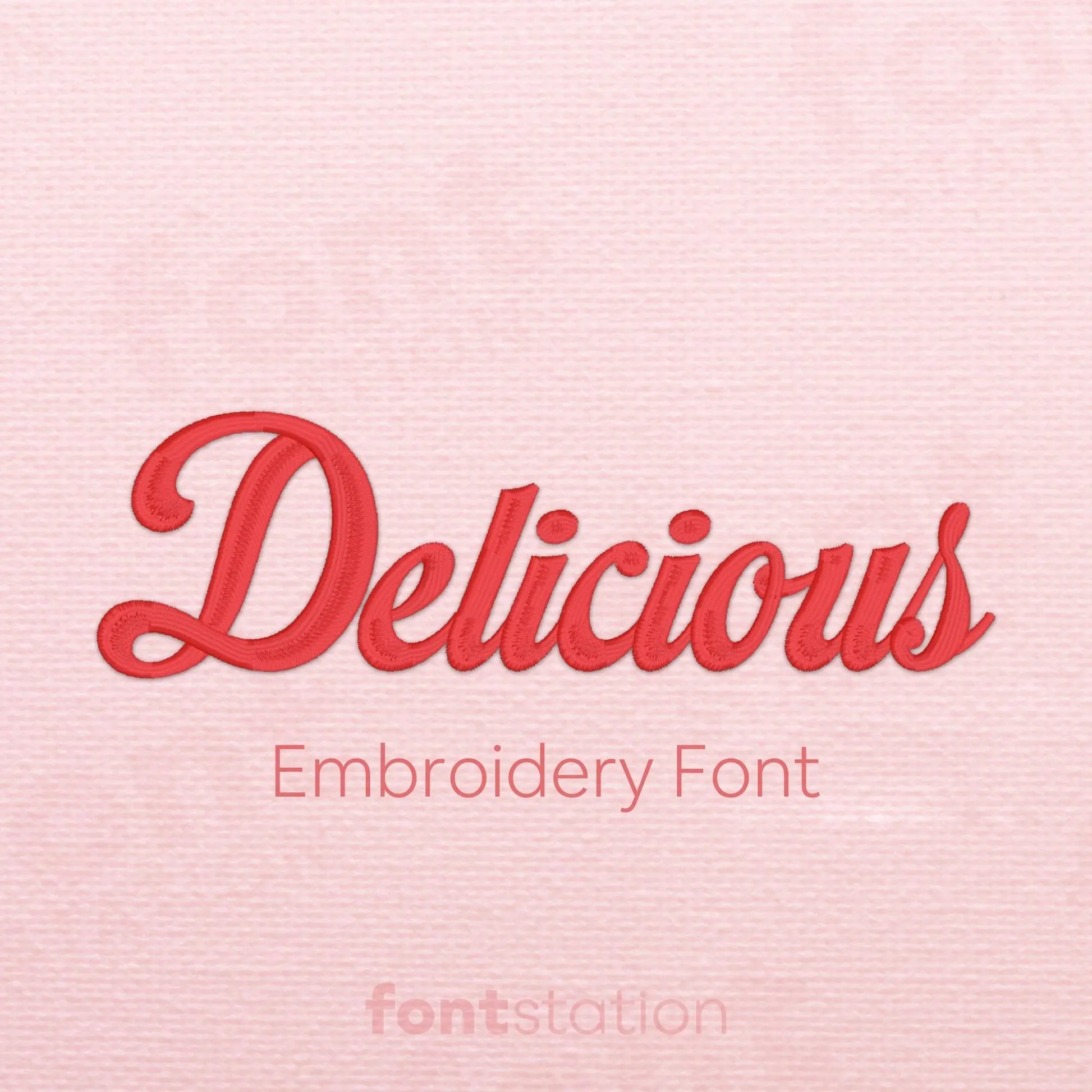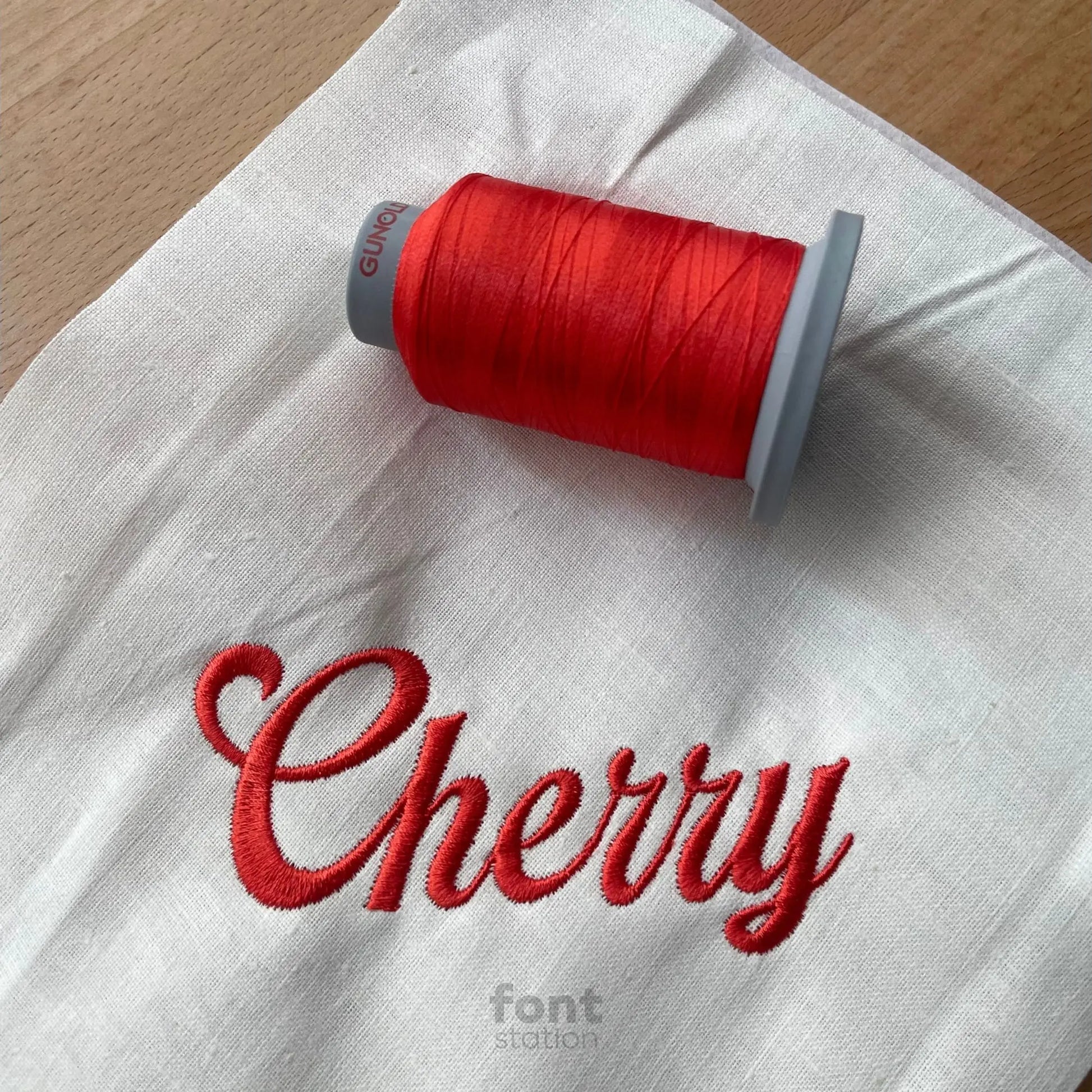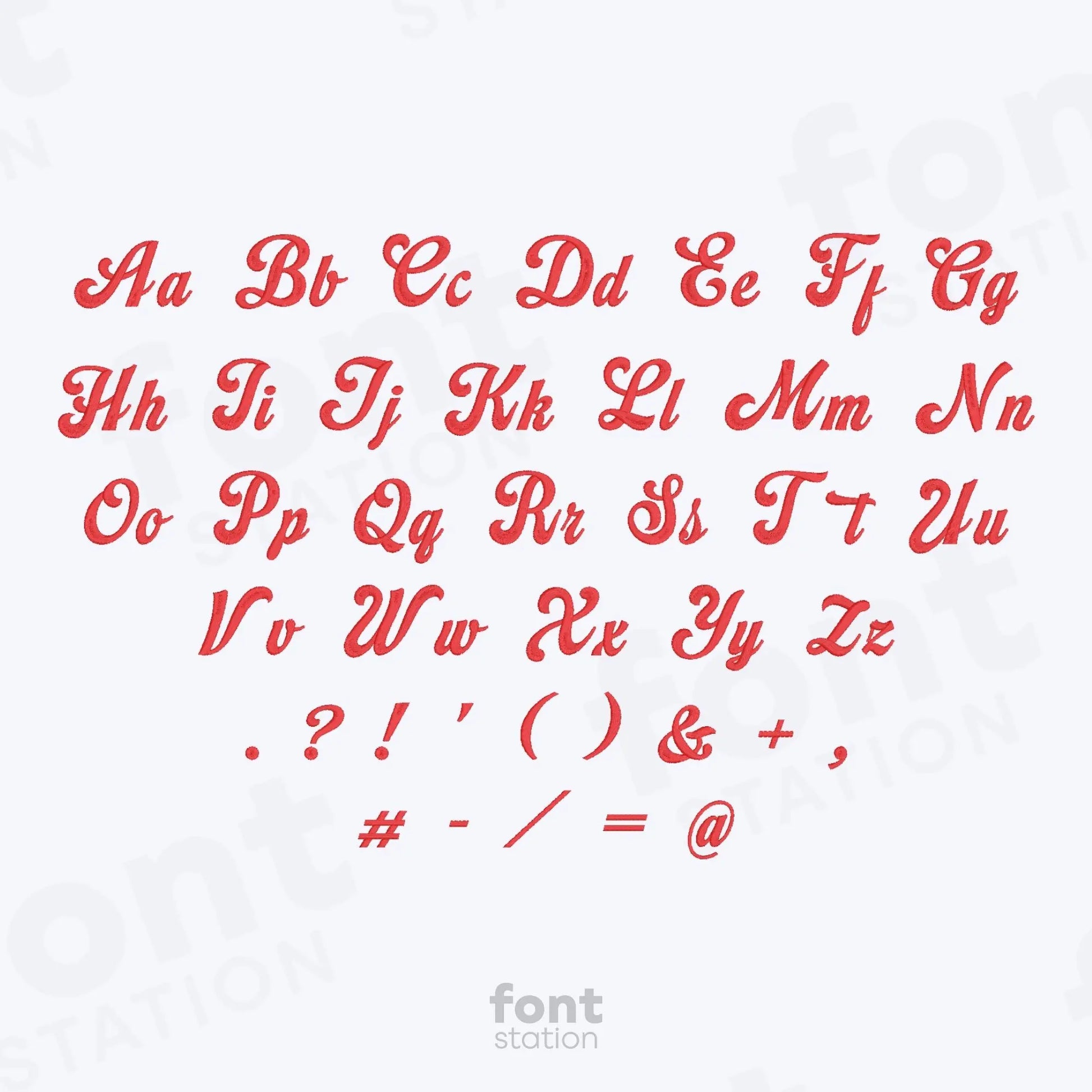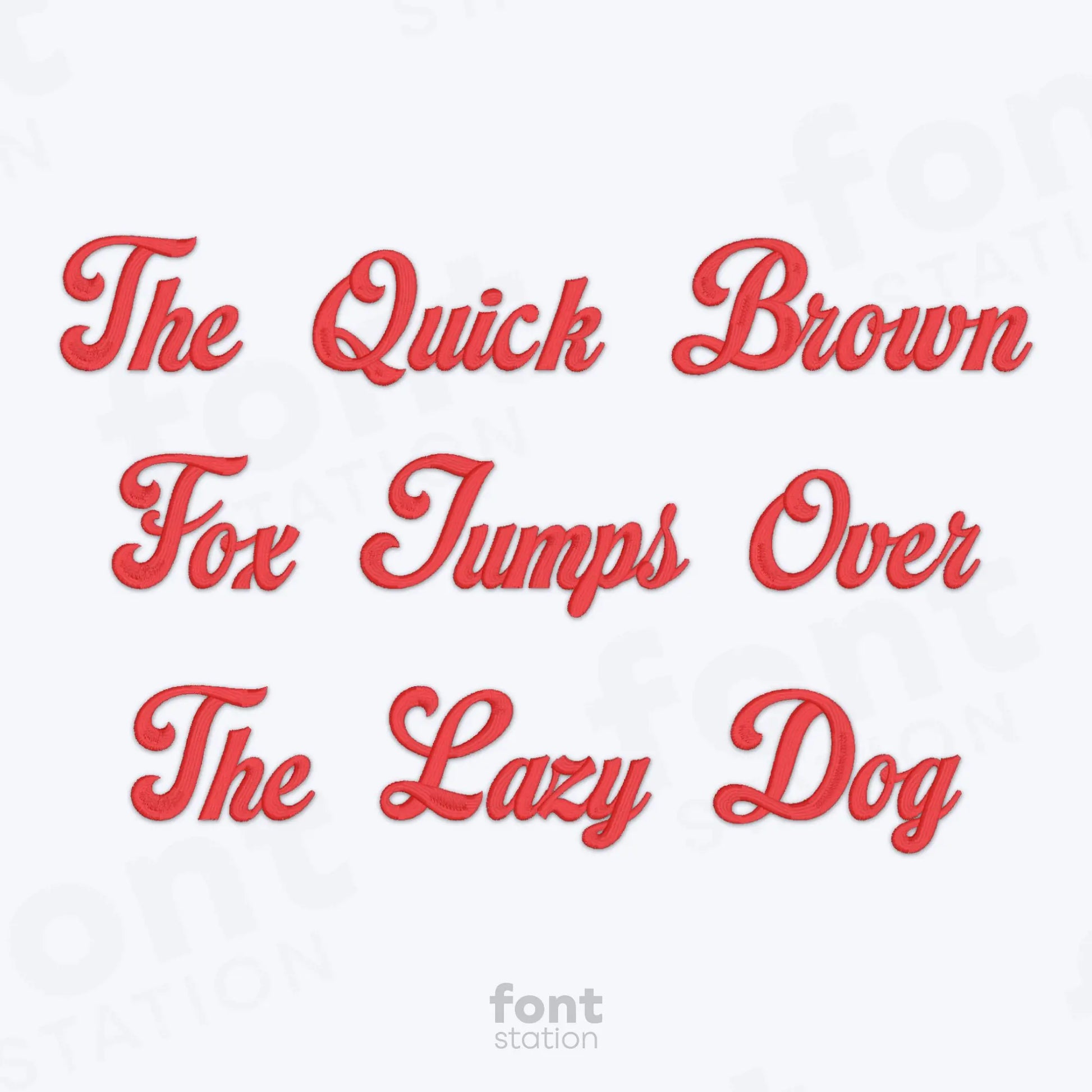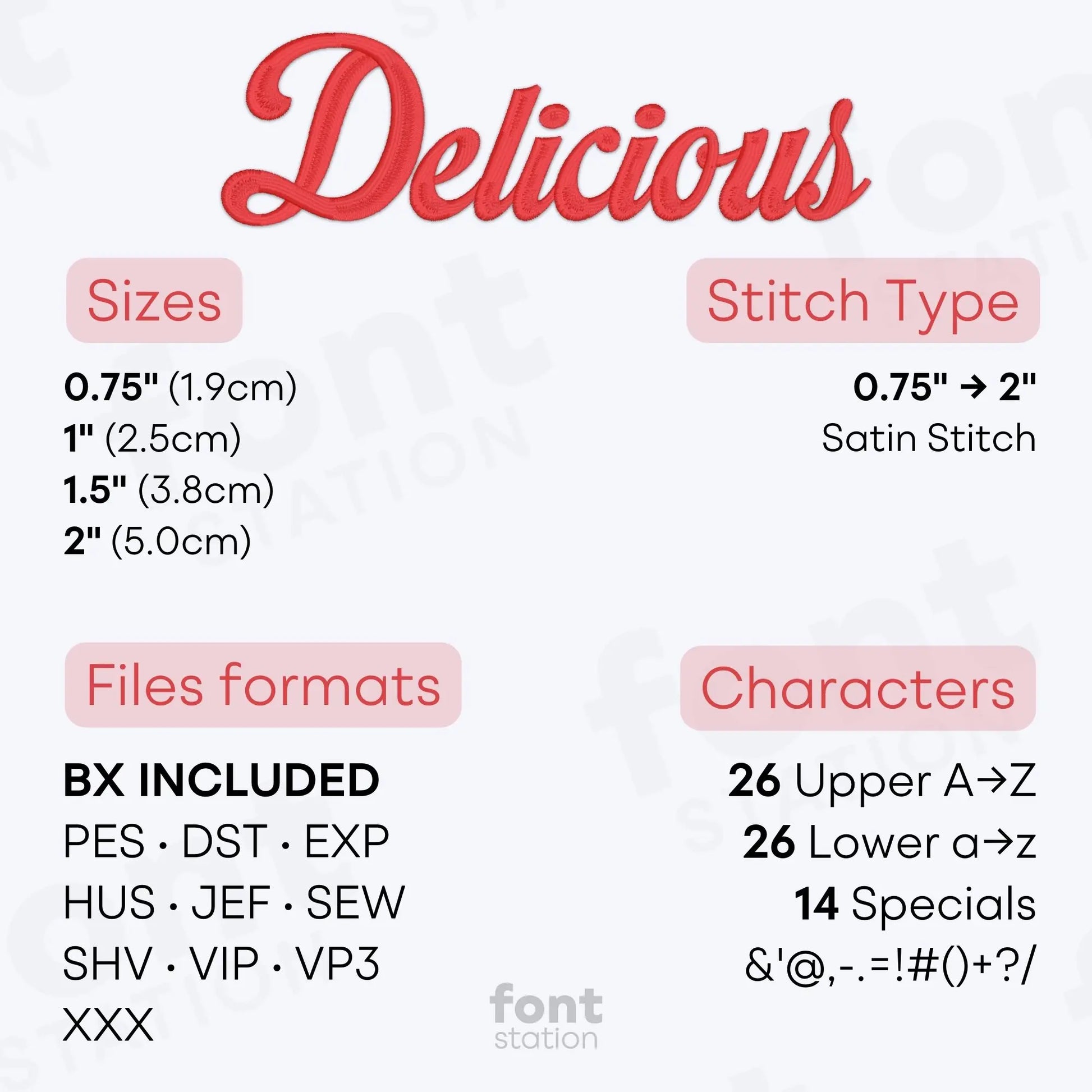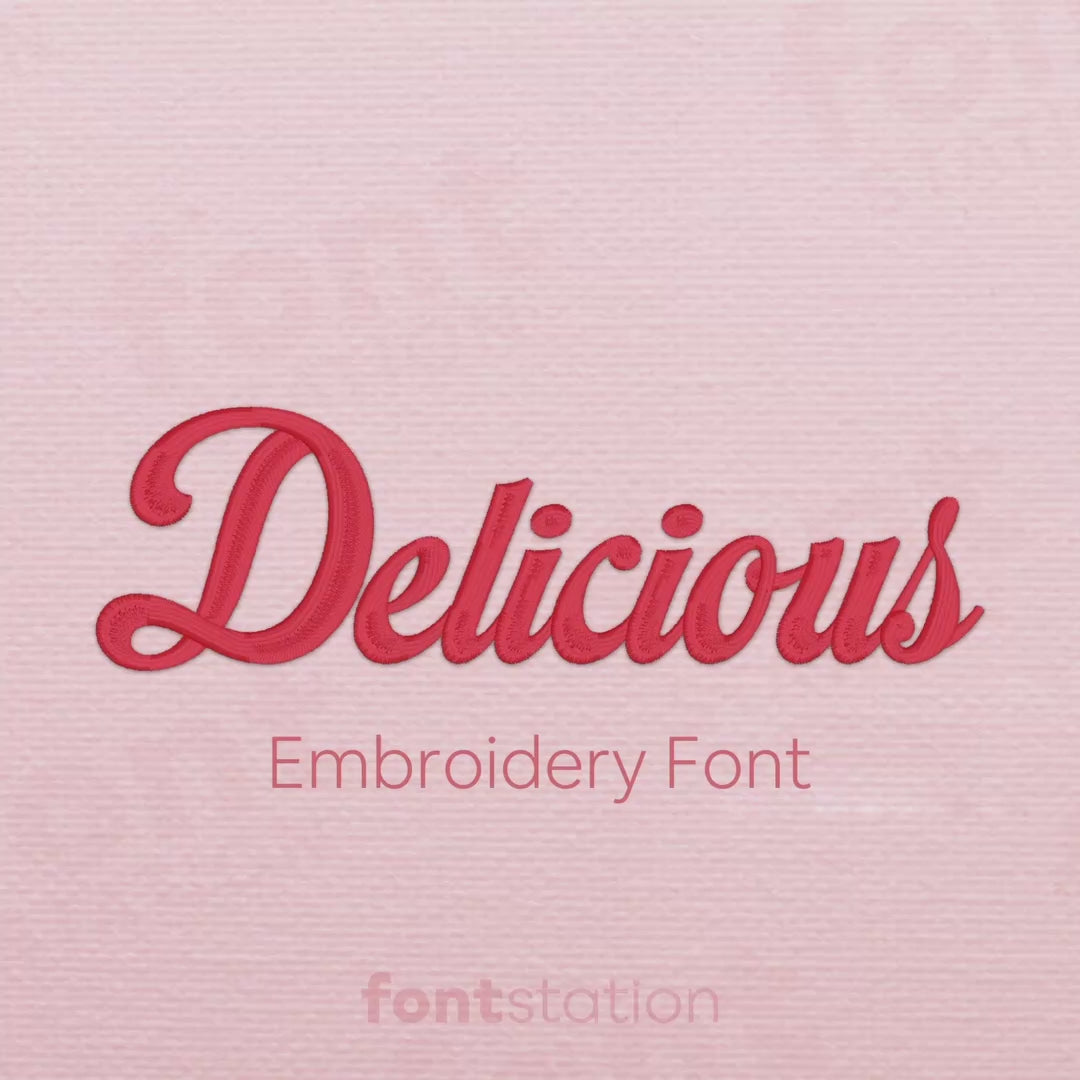
Delicious Embroidery Font
Introducing our Delicious embroidery font - a retro script alphabet that brings vintage charm to your next embroidery project. These cursive letters stitch beautifully on any embroidery machine, making them perfect for nostalgic designs and personalized details.
About the Delicious Embroidery Font
Satin Stitch: 0.75", 1", 1.5", and 2"
Characters: 26 uppercase, 26 lowercase, and symbols & ' @ , - . = ! # ( ) + ? /
Our Delicious embroidery font brings a sweet retro vibe to your embroidery projects.
This vintage-inspired embroidery font features a flowing script alphabet with cursive, retro charm, perfect for personalized gifts, logos, and nostalgic designs. These machine-ready embroidery letters are professionally digitized to ensure smooth stitching on any embroidery machine.